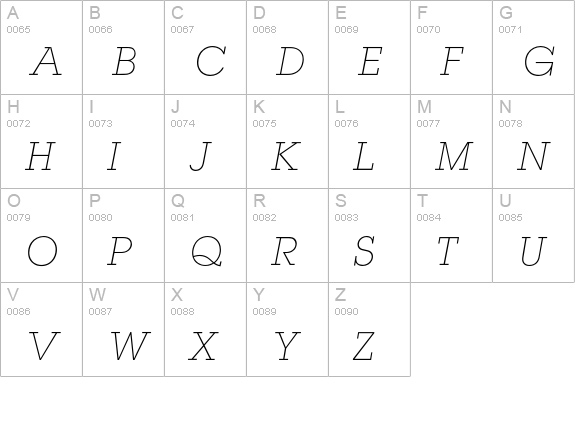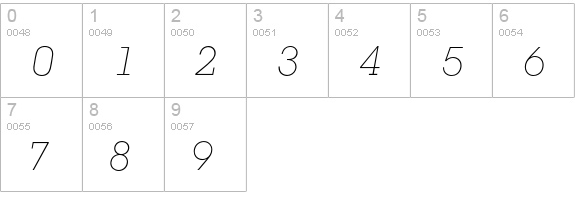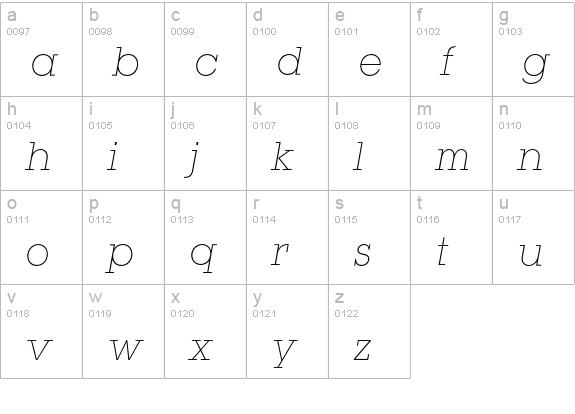
Lubalin Graph* Extra Light Oblique Font Details
Lubalin Graph* Extra Light Oblique is a refined, elegant, italic variant in the Lubalin typeface family \xE2\x80\x94 well suited to elegant body text, refined sub-headings, and luxury branding.
The Lubalin Graph Extra Light Oblique font exudes elegance and sophistication with its sleek and modern design. Its slanted style adds a touch of dynamism and flair to any text, making it perfect for a wide range of design projects. The graceful curves and sharp angles of this font come together to create a visually striking look that commands attention. What sets the Lubalin Graph Extra Light Oblique font apart is its versatility - it can be used for everything from headlines to body text, ensuring that your message is always communicated clearly and effectively. Whether you're designing a sleek corporate brochure or a trendy social media post, this font is sure to make a lasting impression. And the best part? The Lubalin Graph Extra Light Oblique font is available for free download at FontsMarket.com. Now you can access this stylish and versatile font without breaking the bank, making it the perfect choice for designers and creatives looking to elevate their projects without sacrificing quality. Download it today and see how the Lubalin Graph Extra Light Oblique font can take your designs to the next level.